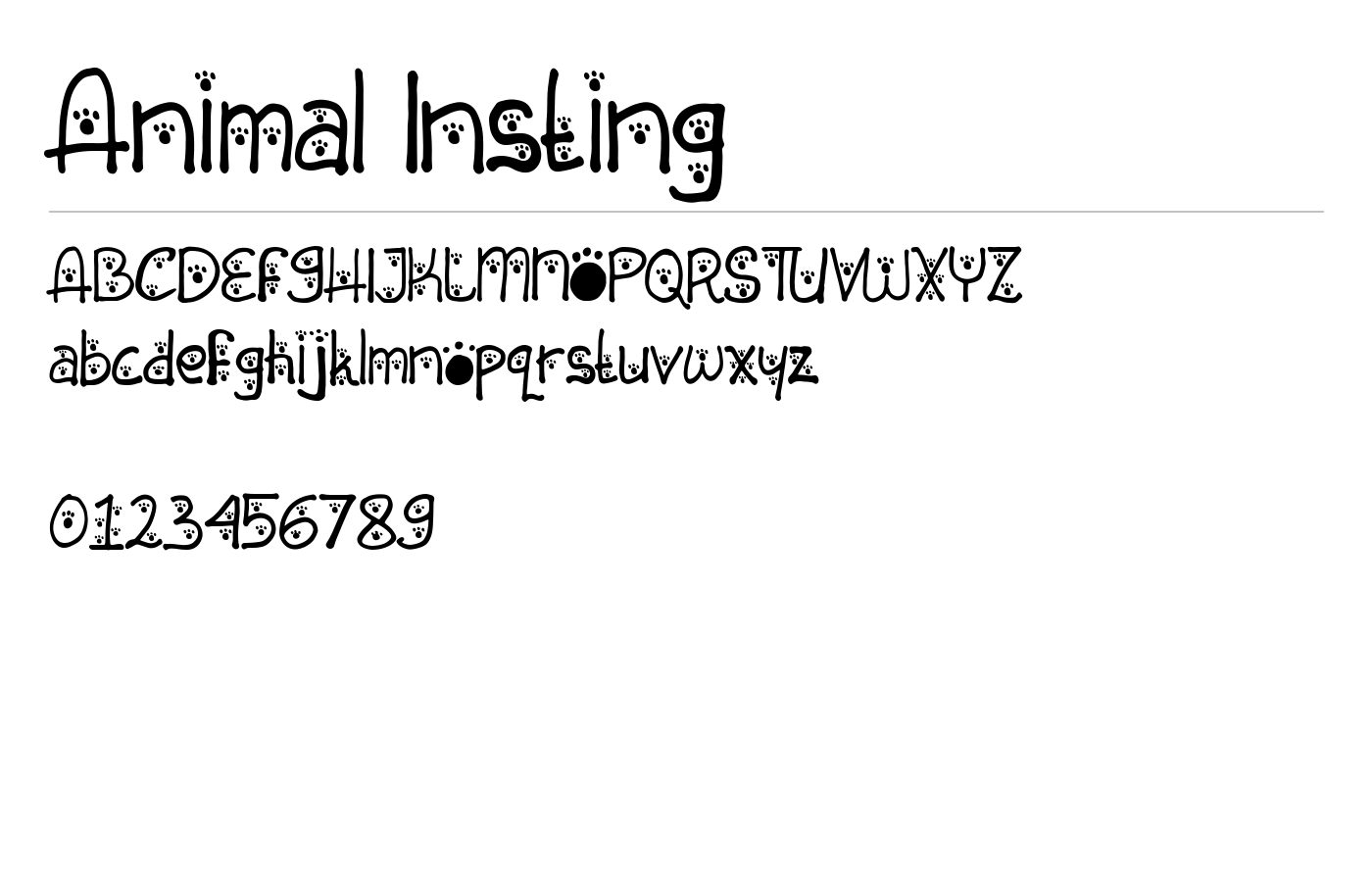
Animal Insting is a playful, hand-drawn sans serif font with a quirky personality, featuring uneven strokes and paw print details that give it a fun, animal-inspired look. Its casual, friendly style works well for children’s books, pet-related branding, and lighthearted designs where a whimsical, informal feel is desired. This font shines in headlines and display use, adding charm and character to creative projects.
Animal Insting Font
About Animal Insting Font
| Font family | Animal Insting Font |
| Designer | Oziel89 Studio |